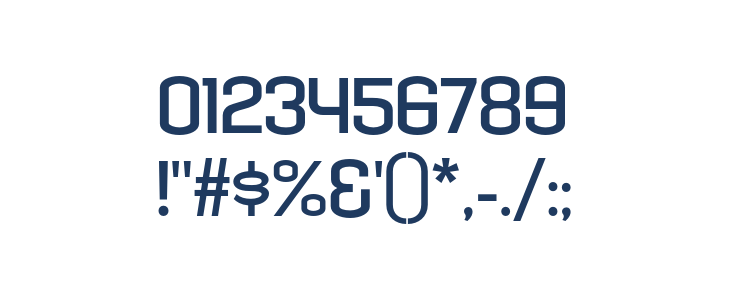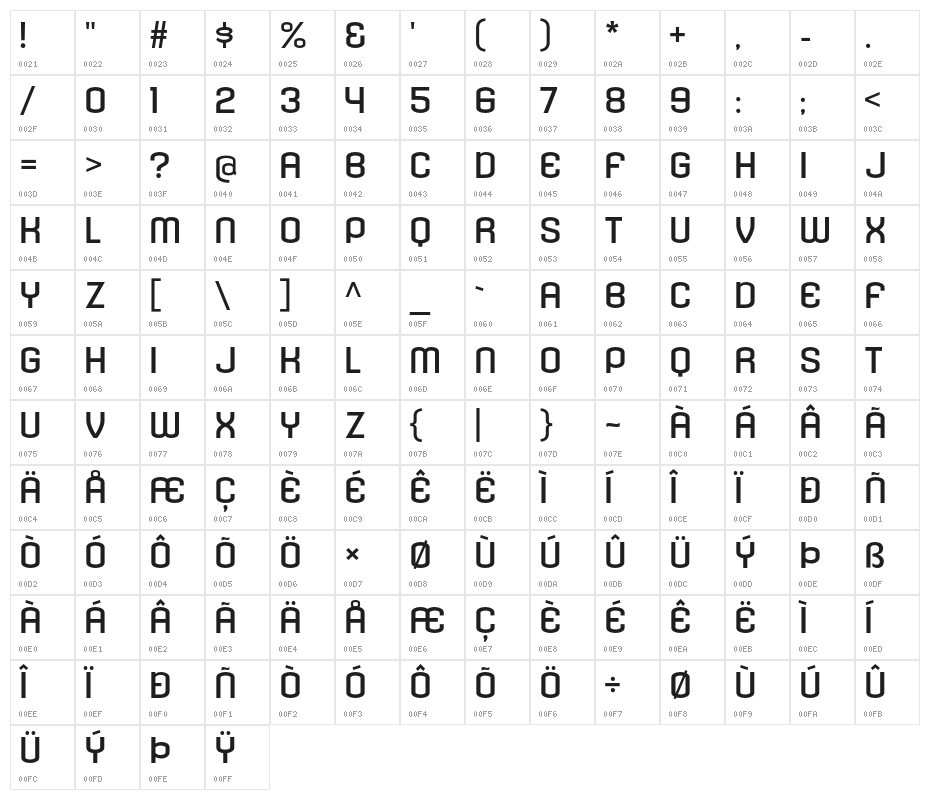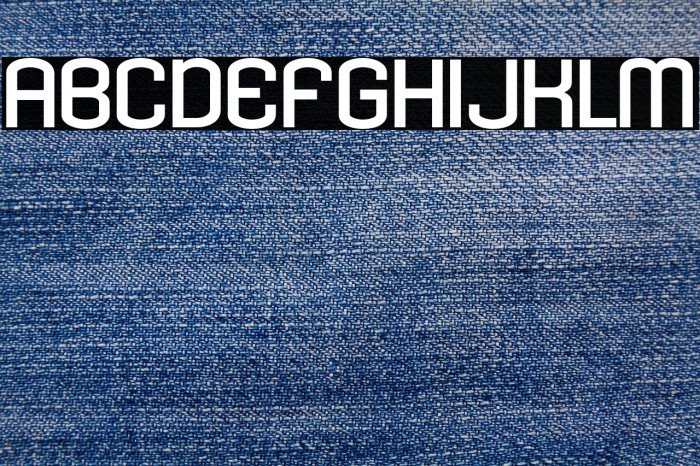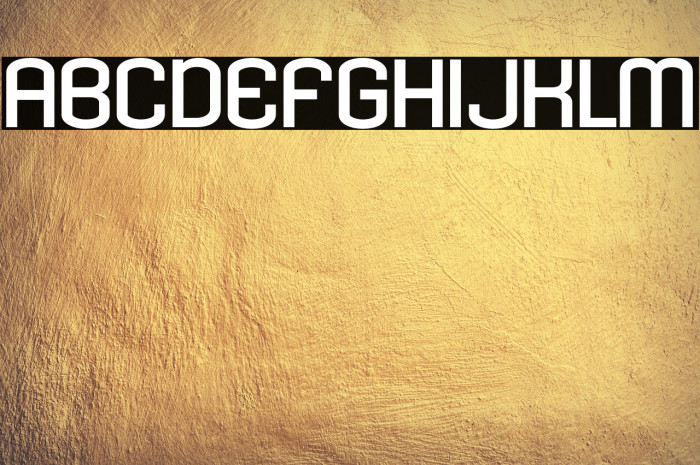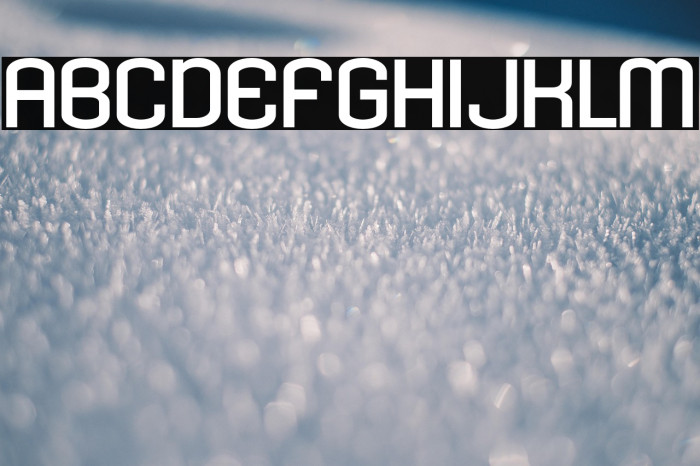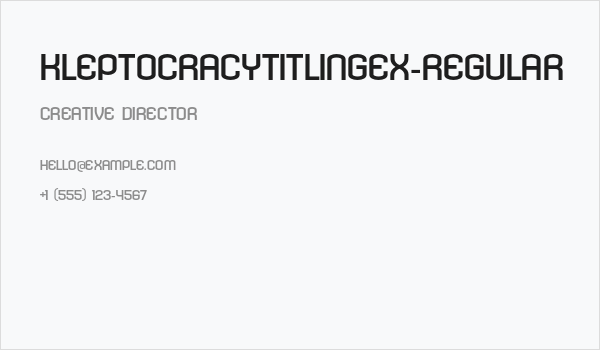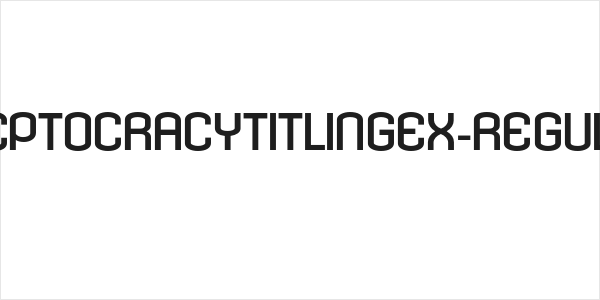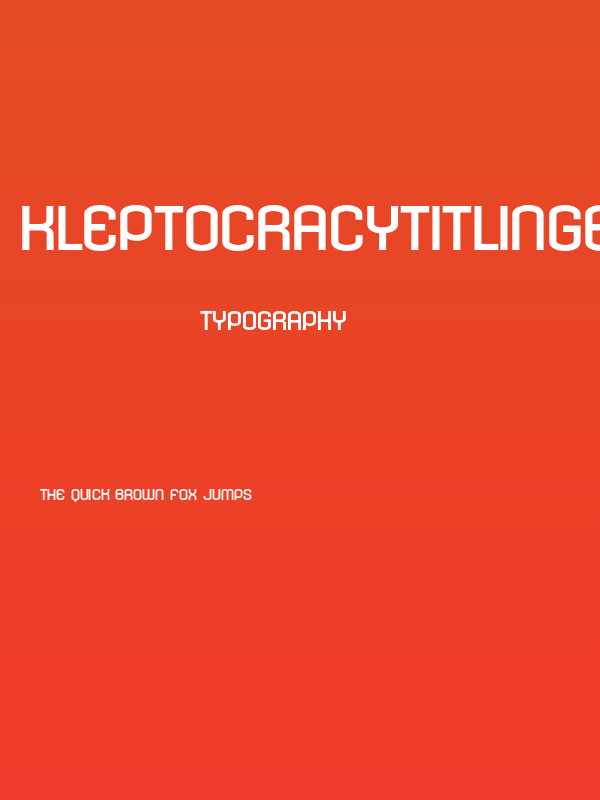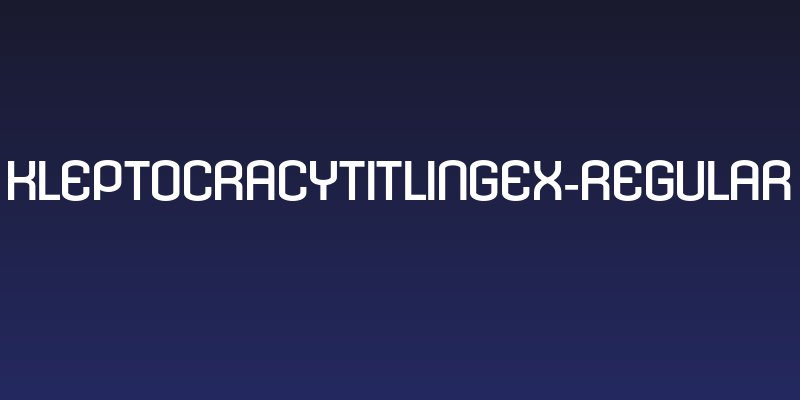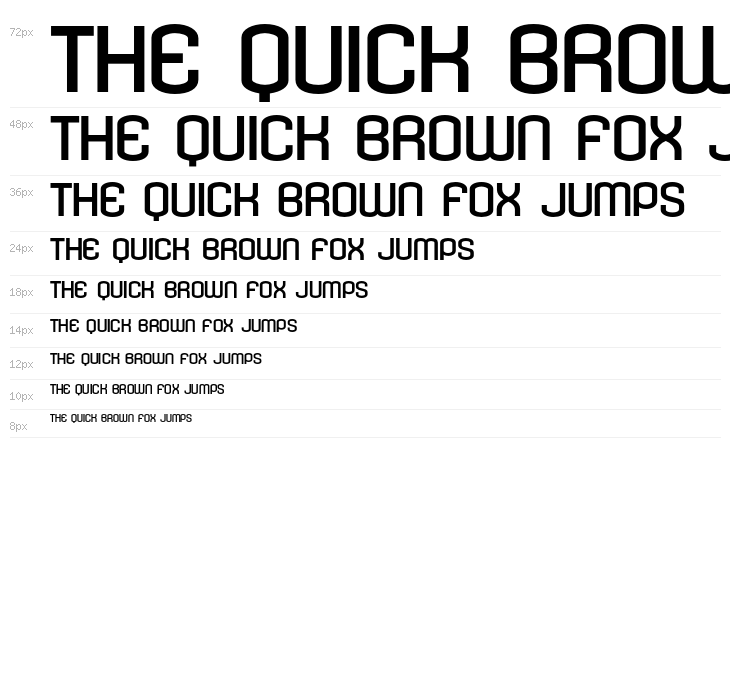
KleptocracyTitlingEx-Regular Font
KleptocracyTitlingEx-Regular Description
This font features a bold, geometric style with a modern and clean aesthetic. The characters are constructed with a consistent stroke width, giving it a uniform appearance. The uppercase letters have a squared-off look with rounded corners, contributing to its contemporary feel. The numerals and special characters maintain the same geometric approach, ensuring a cohesive design across all elements. This font is well-suited for display purposes, where a strong and impactful visual presence is desired.
| Proposed Projects | Ideal for branding, headlines, posters, and any project requiring a strong visual impact. |